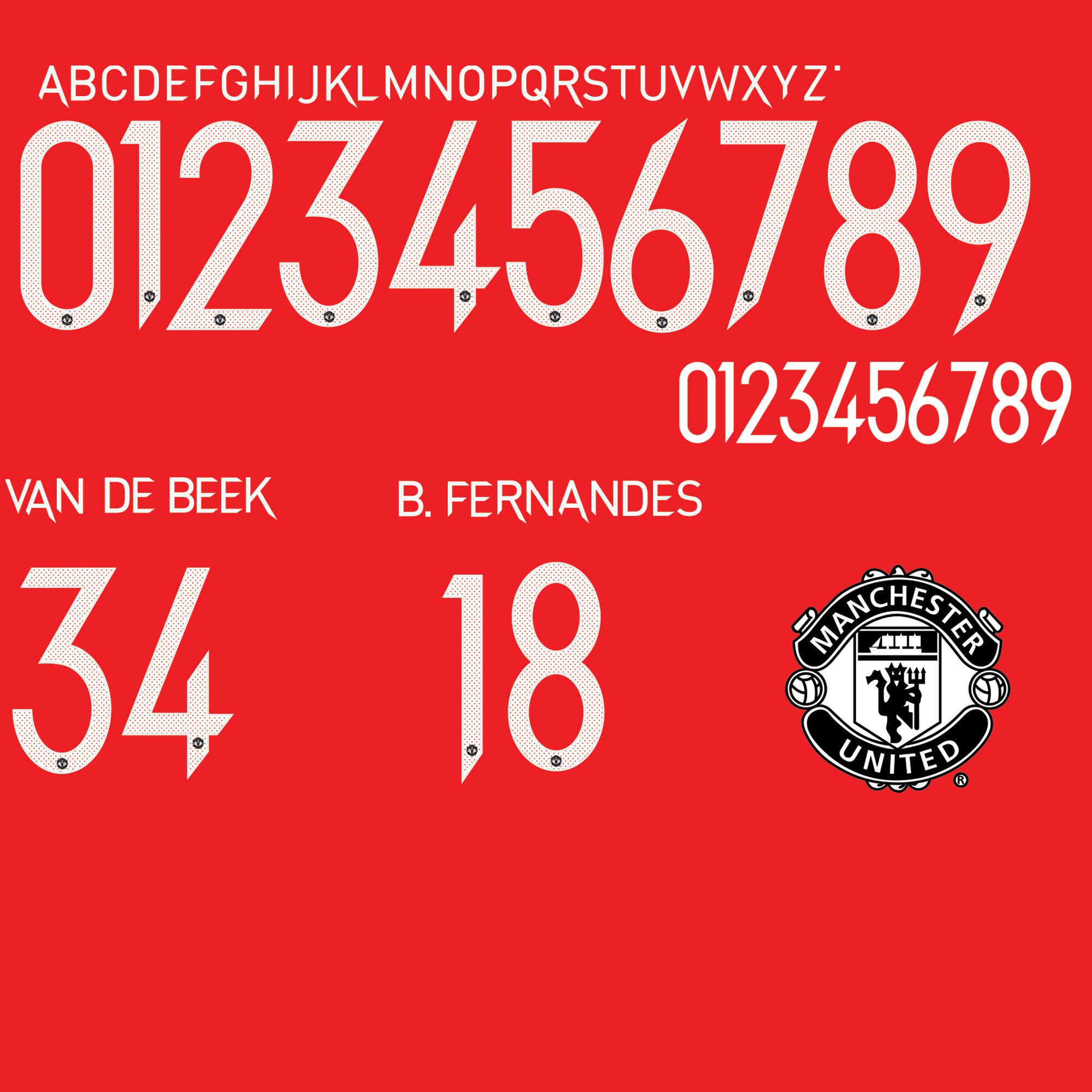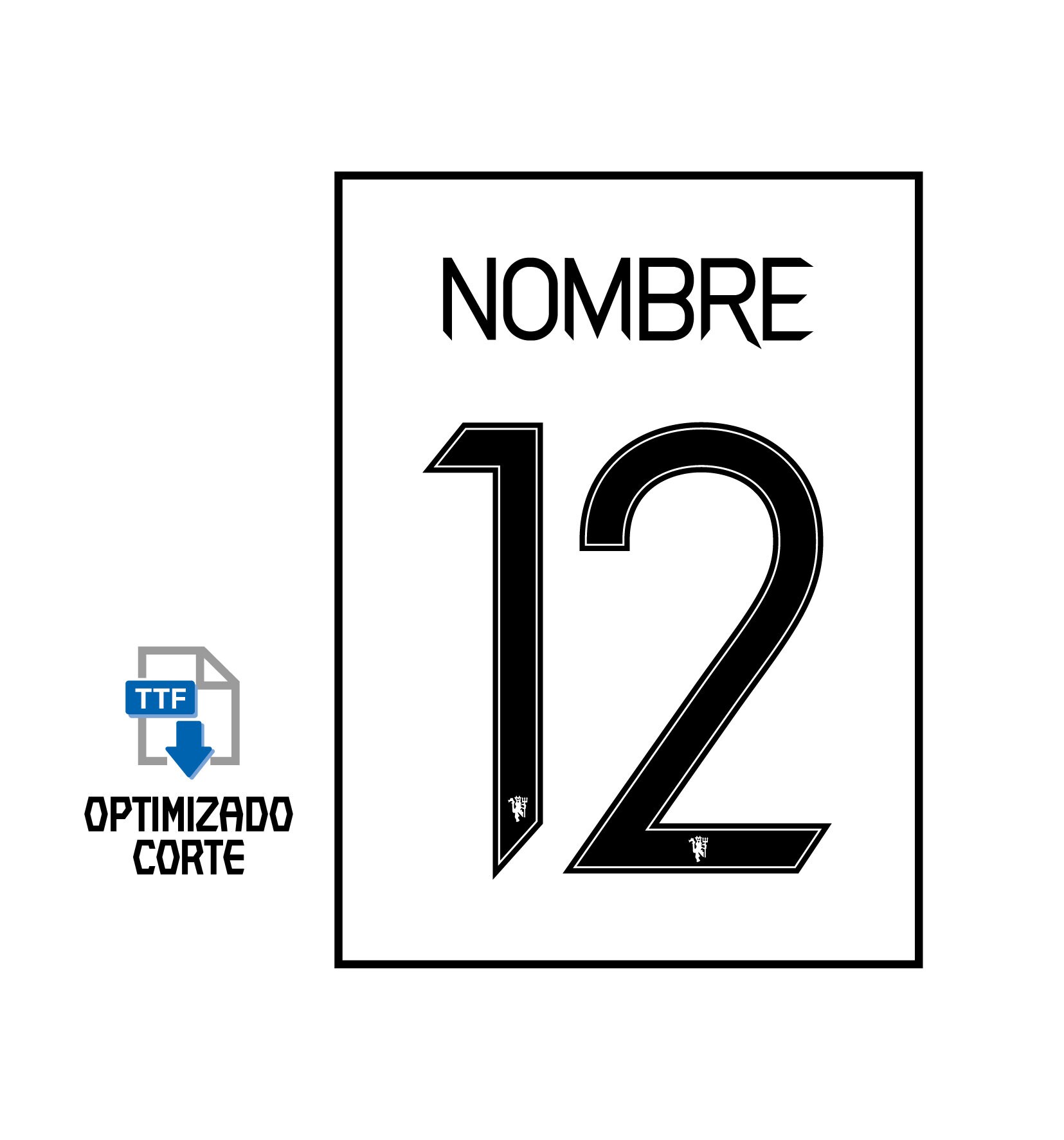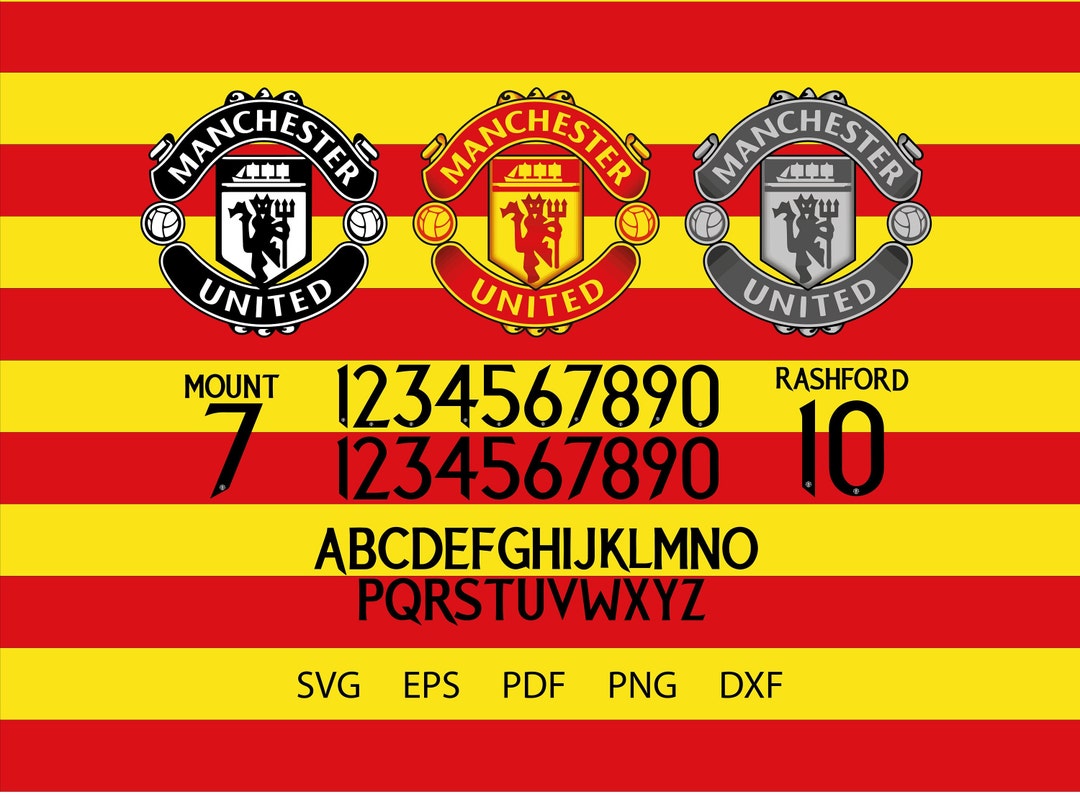
Manchester United Font . Brand design and logo uses manchester united 2021 font family. Manchester united 2021 is the perfect font for all your fun designs.
Web download fonts for manchester united, the premier league football club. Brand design and logo uses manchester united 2021 font family. Logo, which is similar to itc stone sans semibold.
At its heart beats an emblem: Web download fonts for manchester united, the premier league football club. Logo, which is similar to itc stone sans semibold. At its heart beats an emblem:
Manchester United Font - Logo, which is similar to itc stone sans semibold. The manchester united logo —a symbol woven into the fabric of football heritage. Brand design and logo uses manchester united 2021 font family. Itc stone sans ii is a sans serif typeface designed by. Manchester united 2021 is the perfect font for all your fun designs.
Manchester United Font - At its heart beats an emblem: Web learn about the itc stone sans ii font used in the official logo of manchester united, one of the most successful english football clubs. Web learn about the font used for the manchester united f.c. Brand design and logo uses manchester united 2021 font family. Web download fonts for manchester united, the premier.
Manchester United Font - The suggested font is manchester united. Manchester united 2021 is the perfect font for all your fun designs. At its heart beats an emblem: Find fonts for different seasons, sponsors, and. The manchester united logo —a symbol woven into the fabric of football heritage.
Manchester United Font - Web learn about the itc stone sans ii font used in the official logo of manchester united, one of the most successful english football clubs. Find fonts for different seasons, sponsors, and. Logo, which is similar to itc stone sans semibold. Find links to download or. Manchester united 2021 is the perfect font for all your fun designs.
Manchester United Font - Find links to download or. Web learn about the itc stone sans ii font used in the official logo of manchester united, one of the most successful english football clubs. Web download fonts for manchester united, the premier league football club. Brand design and logo uses manchester united 2021 font family. Imagine the surge of adrenaline as you step into.
Manchester United Font - Manchester united 2021 is the perfect font for all your fun designs. Web learn about the font used for the manchester united f.c. Itc stone sans ii is a sans serif typeface designed by. See preview images of different styles. Logo, which is similar to itc stone sans semibold.
Manchester United Font - At its heart beats an emblem: Brand design and logo uses manchester united 2021 font family. Web learn about the itc stone sans ii font used in the official logo of manchester united, one of the most successful english football clubs. Imagine the surge of adrenaline as you step into old trafford, the theatre of dreams, where each corner resonates.
Manchester United Font - Find links to download or. Logo, which is similar to itc stone sans semibold. Manchester united 2021 is the perfect font for all your fun designs. Find fonts for different seasons, sponsors, and. Web a forum post asking about the font used by manchester united, a football club.
Manchester United Font - The manchester united logo —a symbol woven into the fabric of football heritage. Logo, which is similar to itc stone sans semibold. At its heart beats an emblem: Itc stone sans ii is a sans serif typeface designed by. Brand design and logo uses manchester united 2021 font family.
Manchester United Font - Web download fonts for manchester united, the premier league football club. See preview images of different styles. The manchester united logo —a symbol woven into the fabric of football heritage. Web learn about the font used for the manchester united f.c. At its heart beats an emblem:
Manchester United Font - Web learn about the itc stone sans ii font used in the official logo of manchester united, one of the most successful english football clubs. See preview images of different styles. The manchester united logo —a symbol woven into the fabric of football heritage. The suggested font is manchester united. At its heart beats an emblem:
Manchester United Font - Brand design and logo uses manchester united 2021 font family. Find fonts for different seasons, sponsors, and. Find links to download or. See preview images of different styles. Logo, which is similar to itc stone sans semibold.
Manchester United Font - Find links to download or. Brand design and logo uses manchester united 2021 font family. Web a forum post asking about the font used by manchester united, a football club. See preview images of different styles. Web download fonts for manchester united, the premier league football club.
Manchester United Font - Web download fonts for manchester united, the premier league football club. Logo, which is similar to itc stone sans semibold. Web a forum post asking about the font used by manchester united, a football club. Web learn about the itc stone sans ii font used in the official logo of manchester united, one of the most successful english football clubs..
Manchester United Font - The suggested font is manchester united. Logo, which is similar to itc stone sans semibold. Web a forum post asking about the font used by manchester united, a football club. Web learn about the font used in the logo of manchester united football club, a professional football club in england. Brand design and logo uses manchester united 2021 font family.